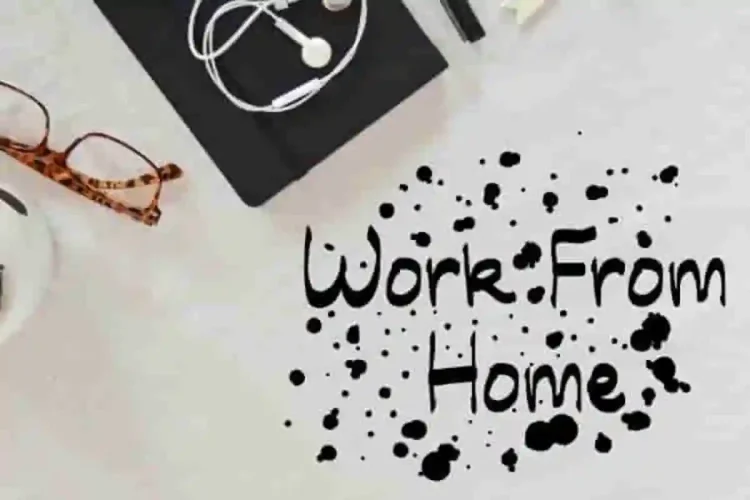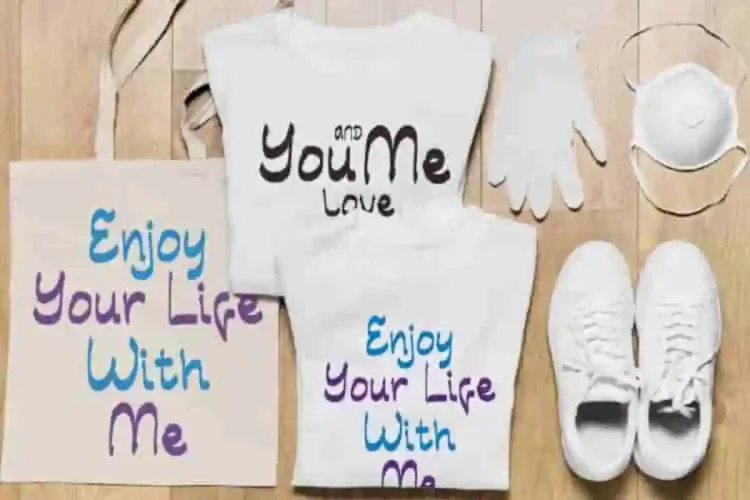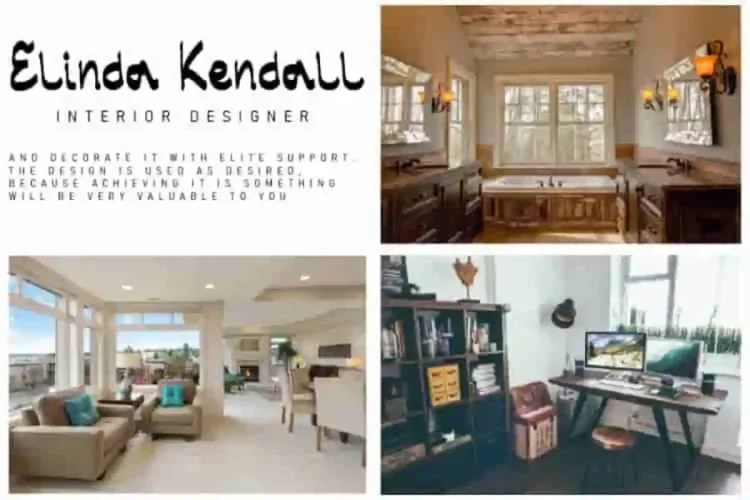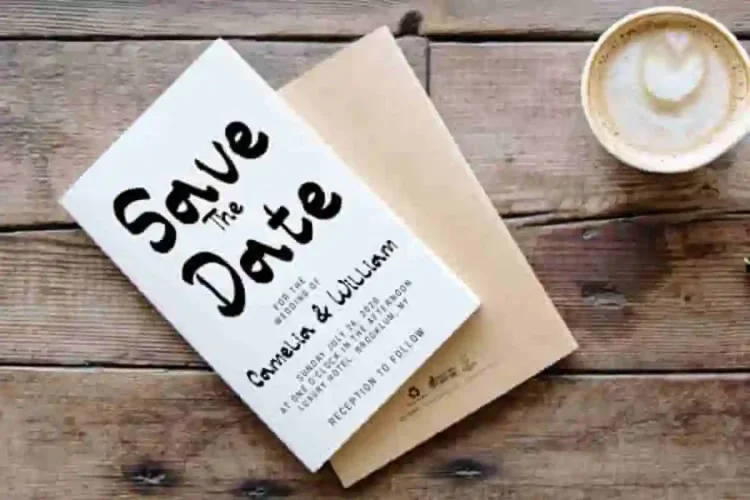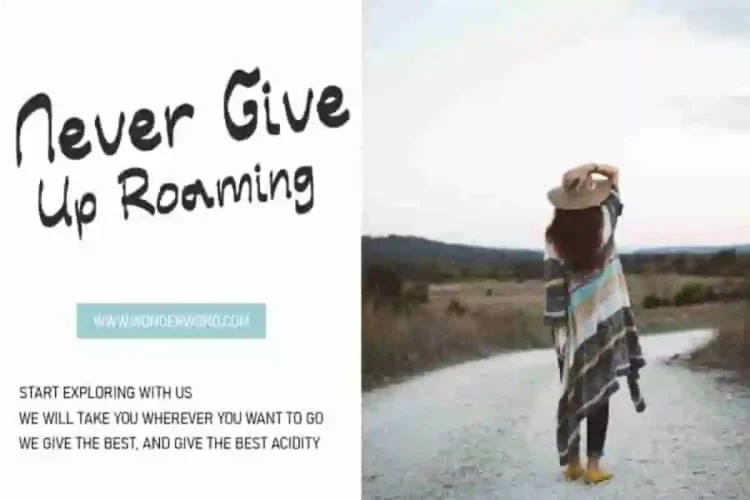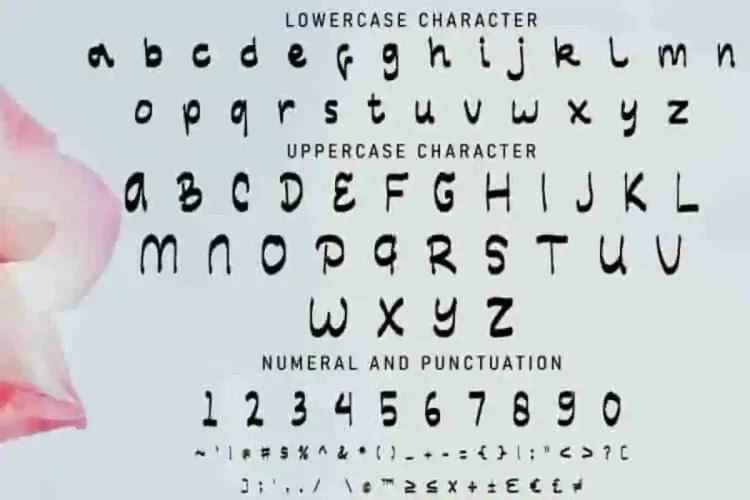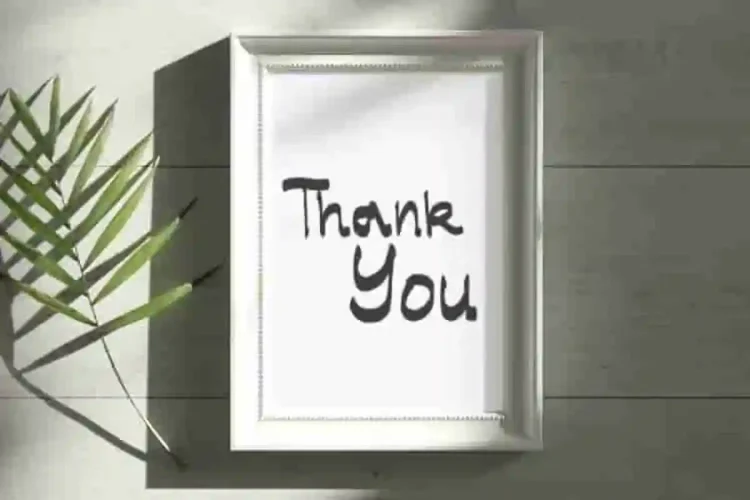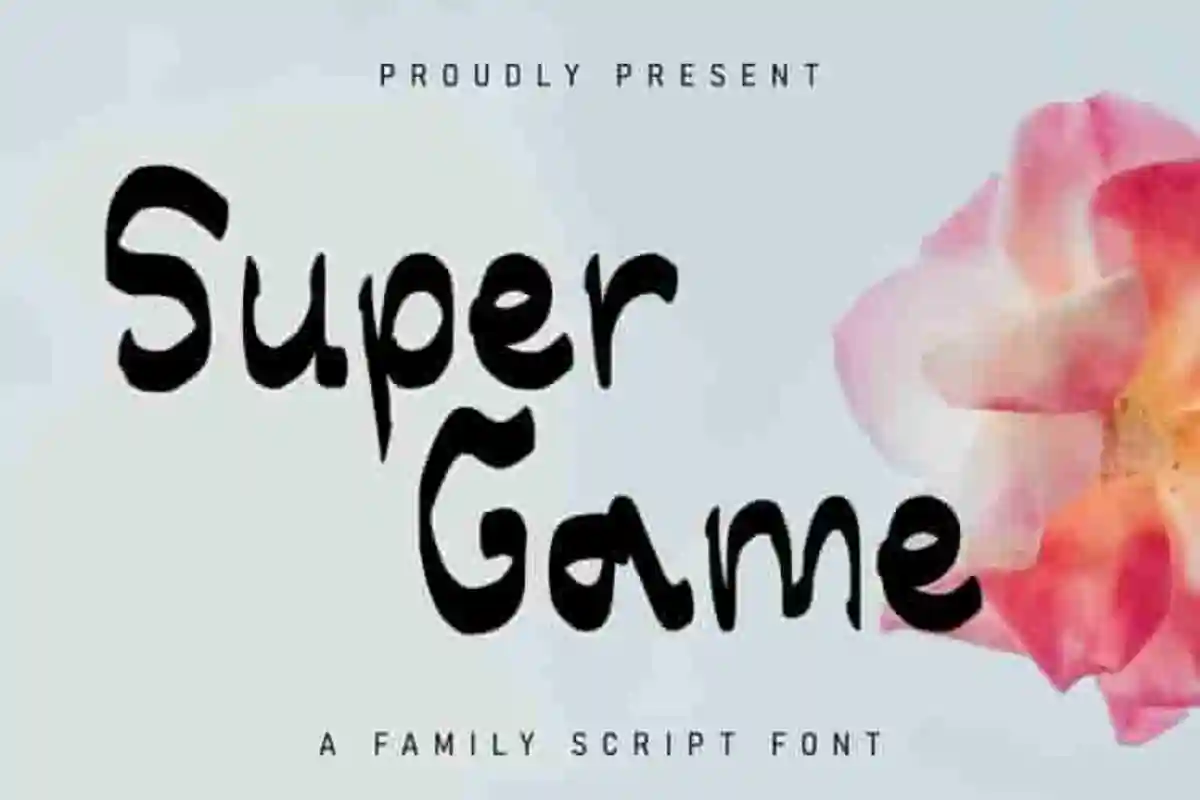
Super Game Comic Font is a unique Comic style Handwriting font. It’s a comic style handwriting font with an exclusive unusual shapes. Made for many projects : game, children books, products, merchandising, cover, banner, tags, cards etc. It will be great for fun projects, kids theme, school, science project etc.